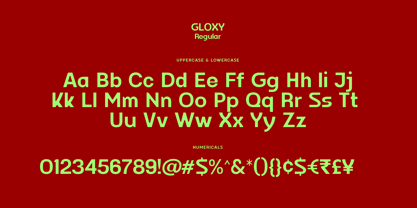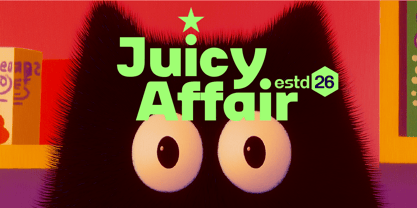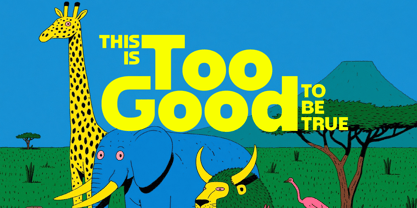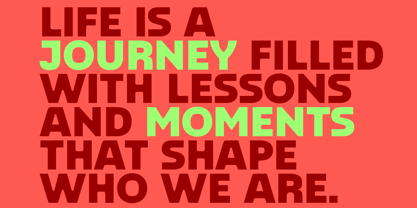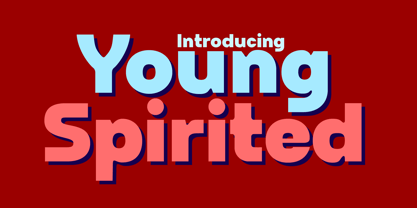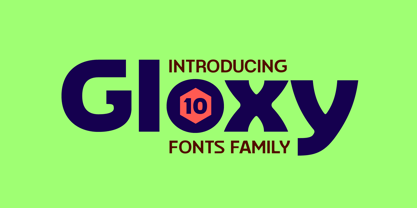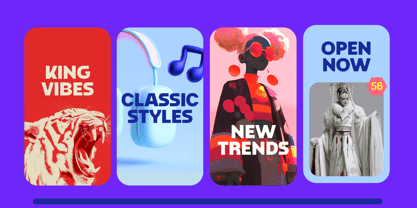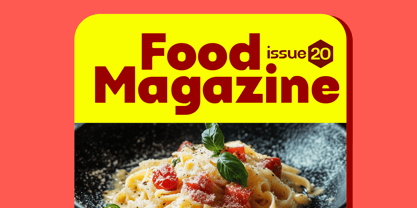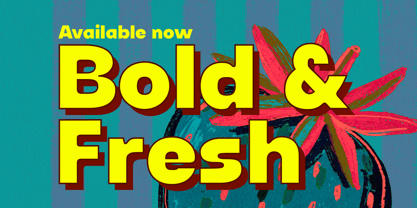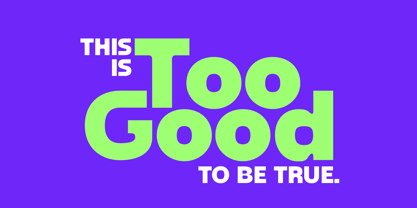
Gloxy
La familia tipográfica Gloxy fue diseñada por Abhya Chawla y publicada por Likeminds Studio. Gloxy contiene 10 estilos y opciones de paquete familiar. Más información sobre esta familia
Gloxy is a contemporary sans-serif typeface inspired by fresh, bold, and vibrant energy. Designed to make an impact, it is equally suited for striking posters, dynamic packaging, energy labels, and expressive brand identities. Its distinctive geometric contours and bespoke detailing create a warm, approachable character while maintaining a confident and modern presence.
Balancing personality with functionality, Gloxy features carefully crafted proportions that perform exceptionally well across both small text sizes and bold display headlines. Its versatility makes it ideal for branding, packaging, logo design, editorial layouts, digital products, and app interfaces.
With its playful yet refined aesthetic, Gloxy brings a sense of optimism, enjoyment, and confidence to every application. The typeface delivers a memorable visual voice that helps brands communicate with energy, warmth, and contemporary appeal.